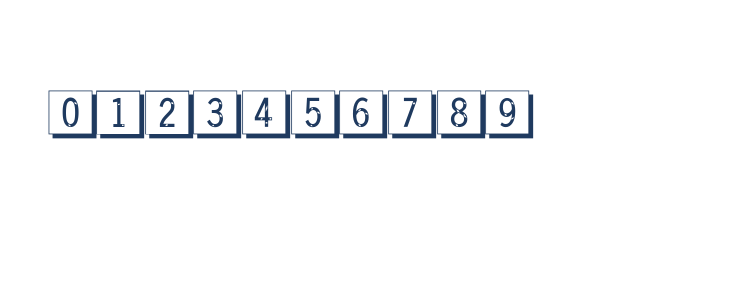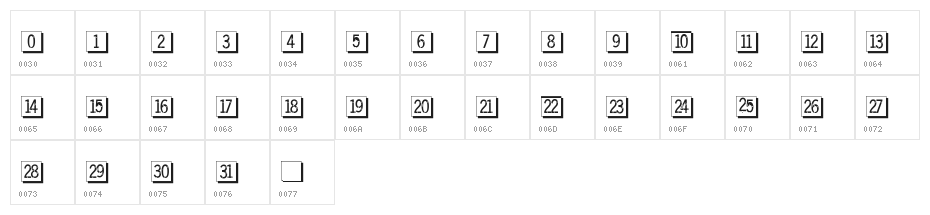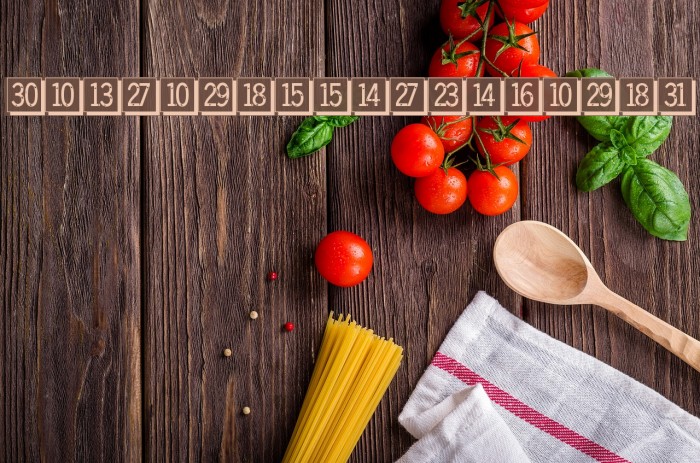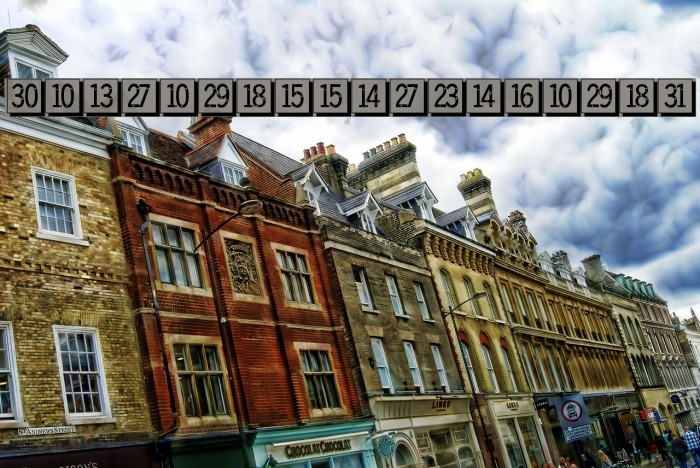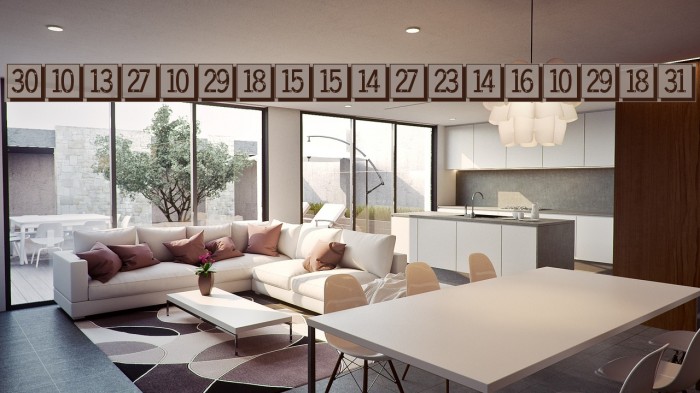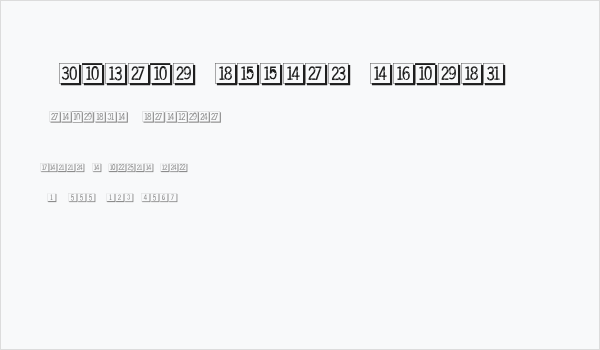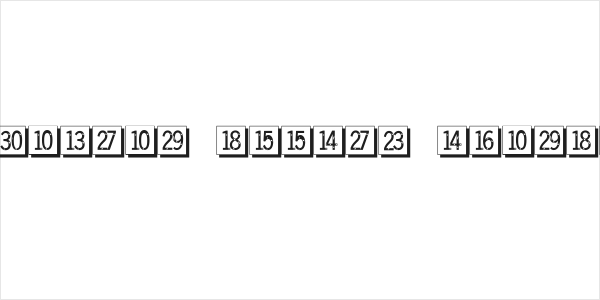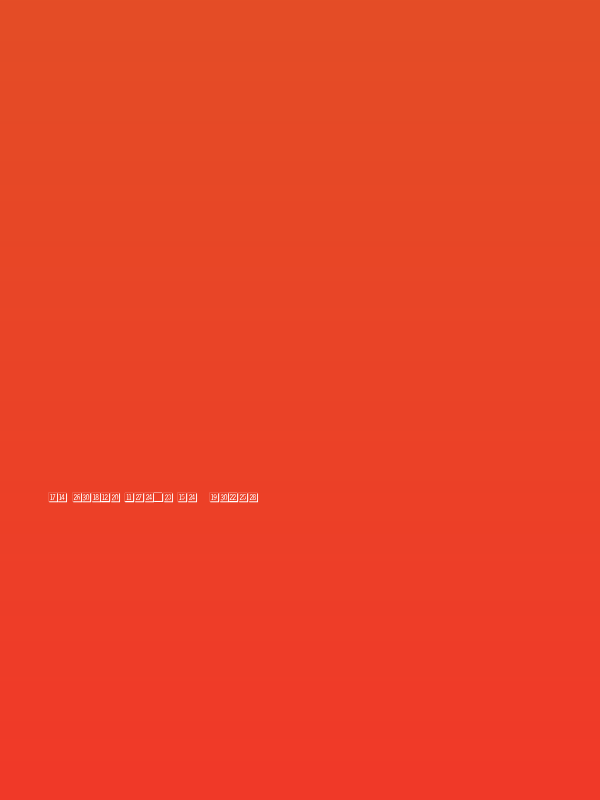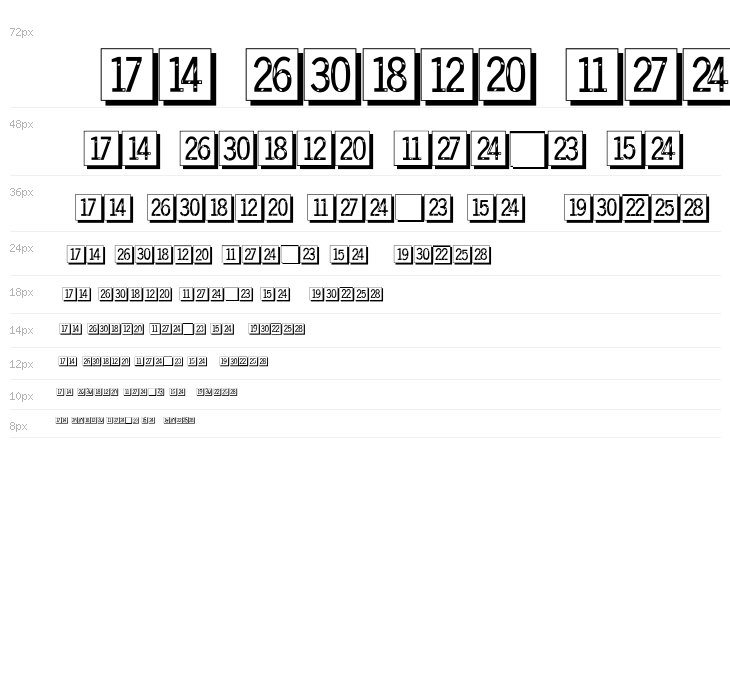
QuadratZiffernNegativ Font
QuadratZiffernNegativ Description
This font features numerals enclosed within square boxes, creating a distinct and structured appearance. Each number is centered within its box, providing a uniform and organized look. The numbers themselves are bold and clear, making them highly legible. The design is reminiscent of vintage or retro styles, often seen in calendars or signage. The contrast between the numbers and their background is high, ensuring that each numeral stands out prominently. This font is ideal for projects that require a clear and structured presentation of numbers, such as calendars, charts, or educational materials.
| Use Case | Signage, Calendars, Educational materials |
| Proposed Projects | Ideal for calendars, educational materials, signage, and charts. |